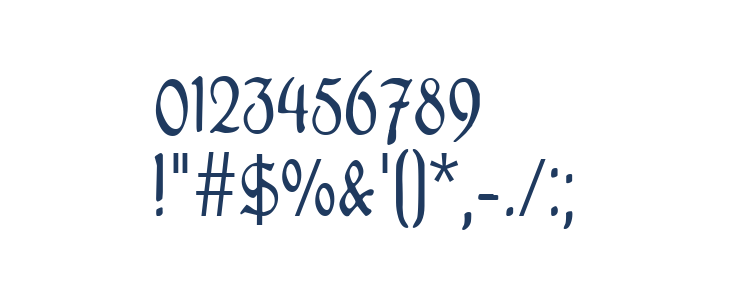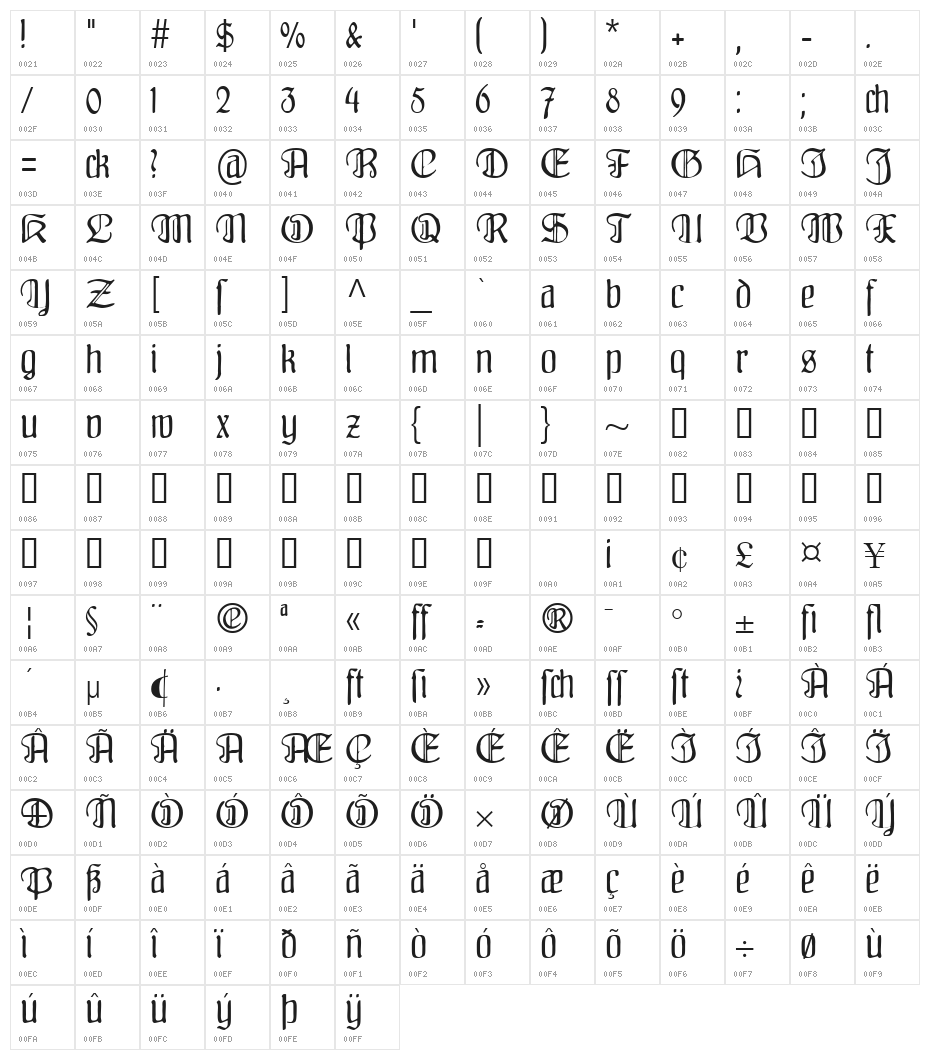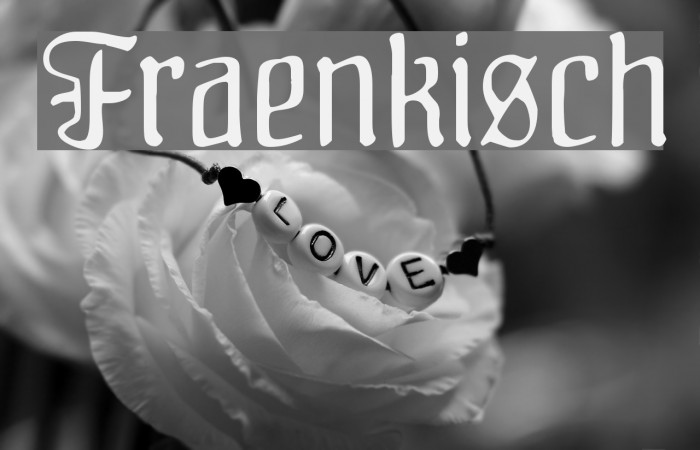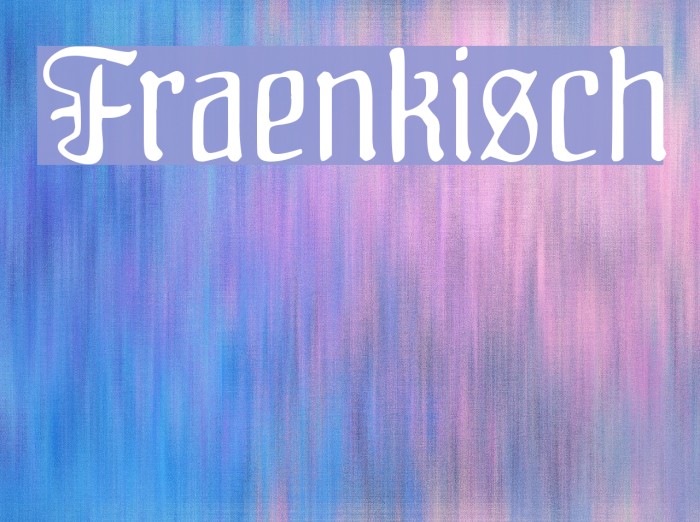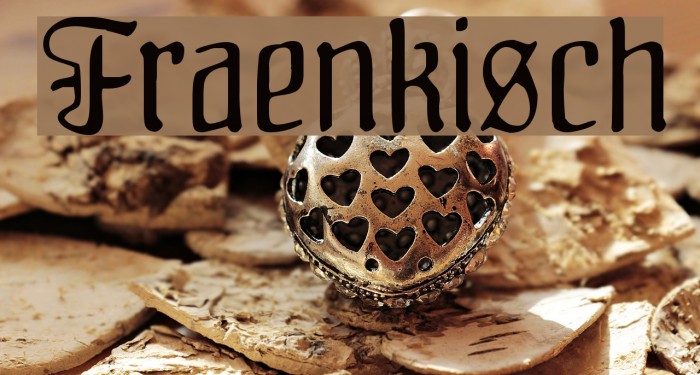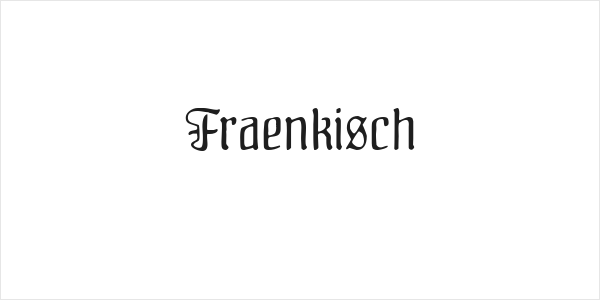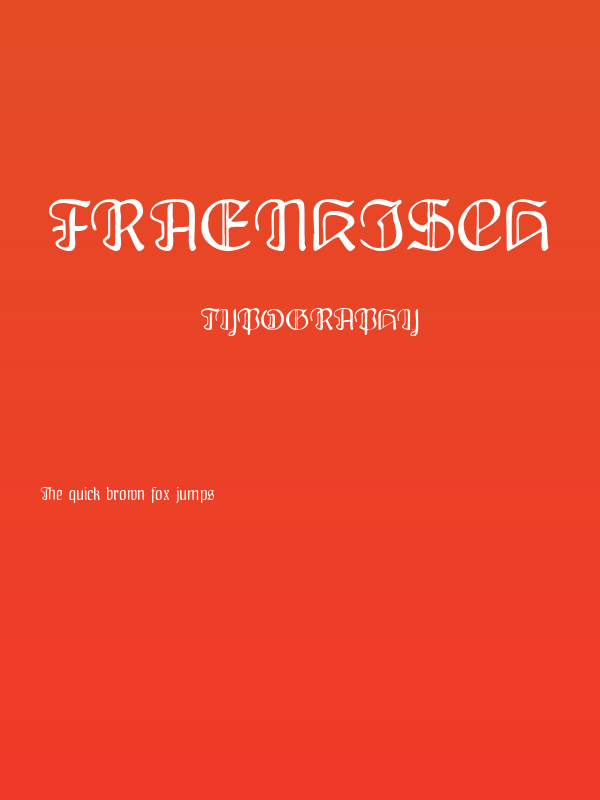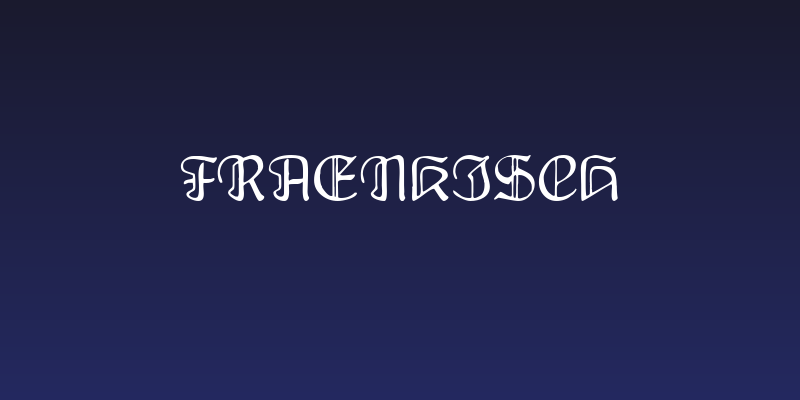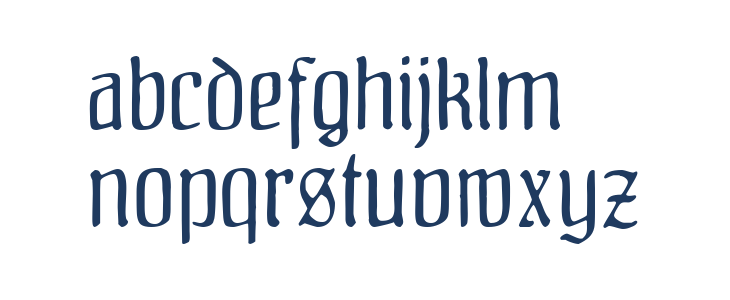
Fraenkisch Font
Fraenkisch Description
This font features a distinctive blend of traditional and modern elements, characterized by its ornate and intricate design. The uppercase letters exhibit a Gothic influence with sharp, angular lines and decorative flourishes, while the lowercase letters maintain a more streamlined and readable form. The numerals and special characters continue this theme, offering a cohesive and visually striking appearance. The overall aesthetic is reminiscent of medieval script, yet it retains a contemporary edge, making it versatile for various design applications.